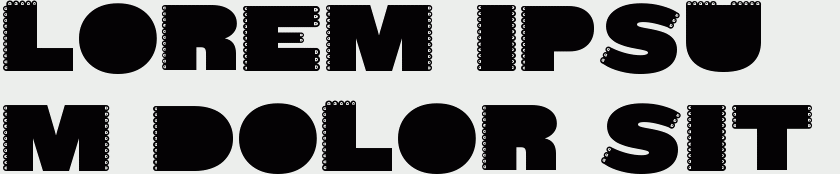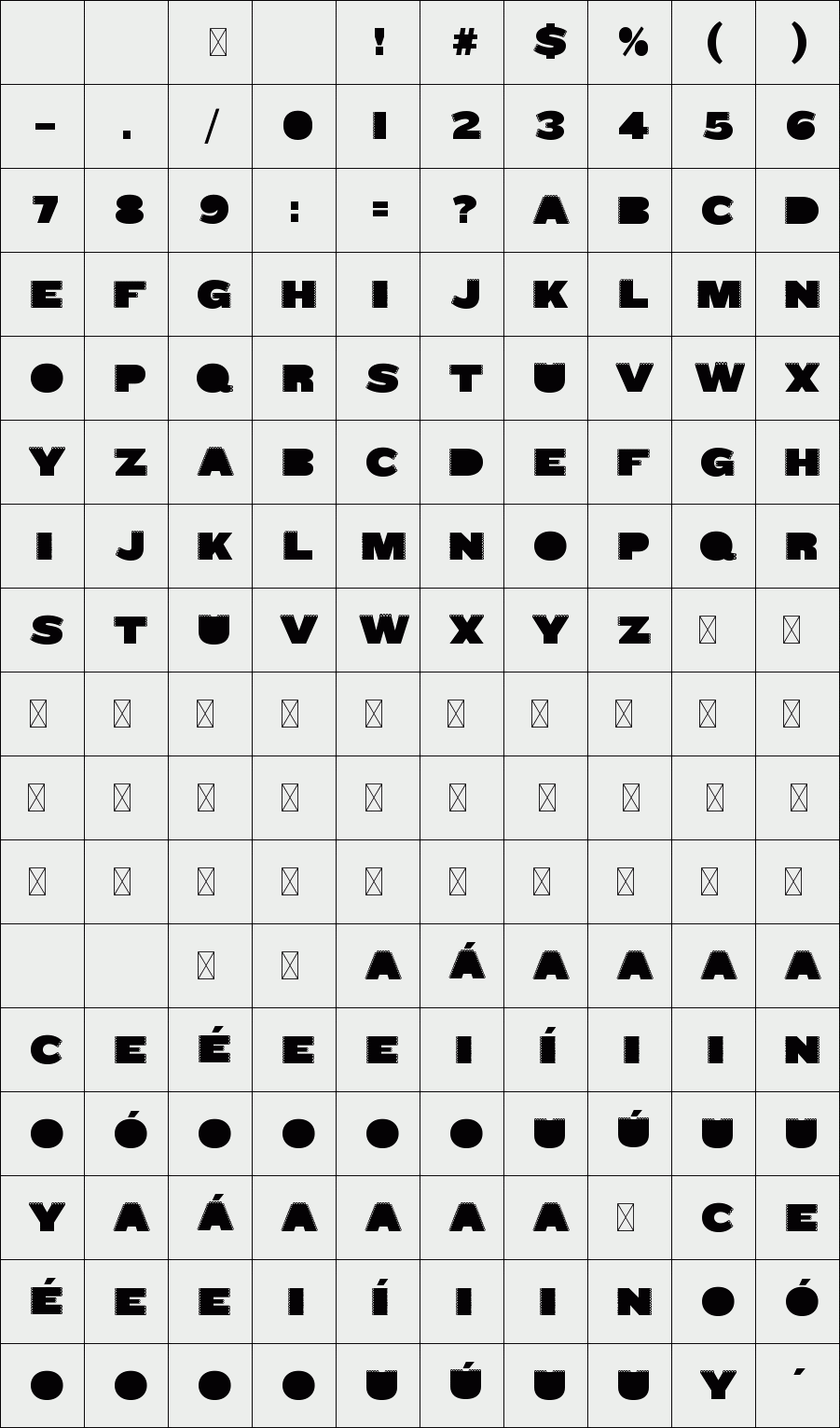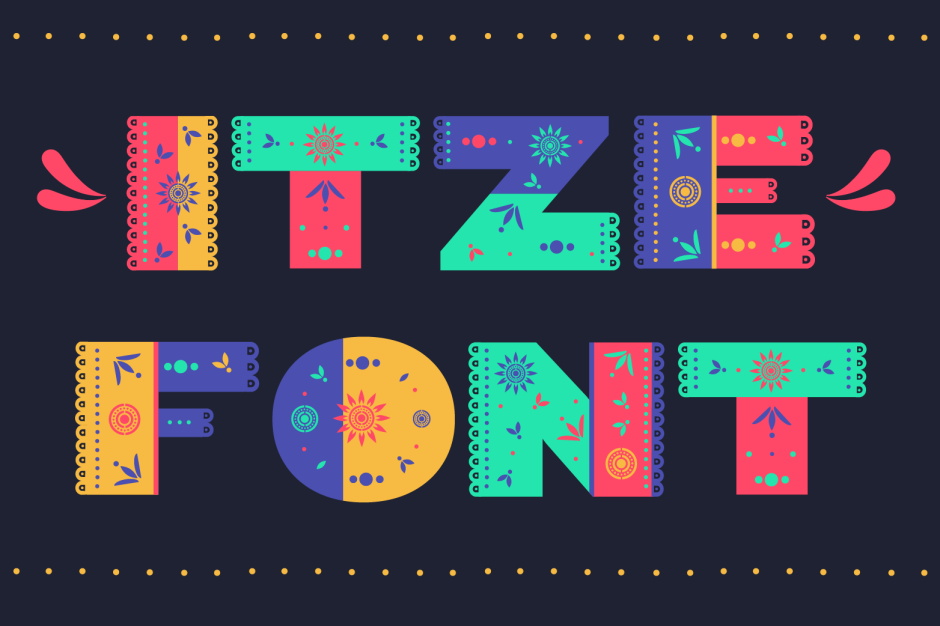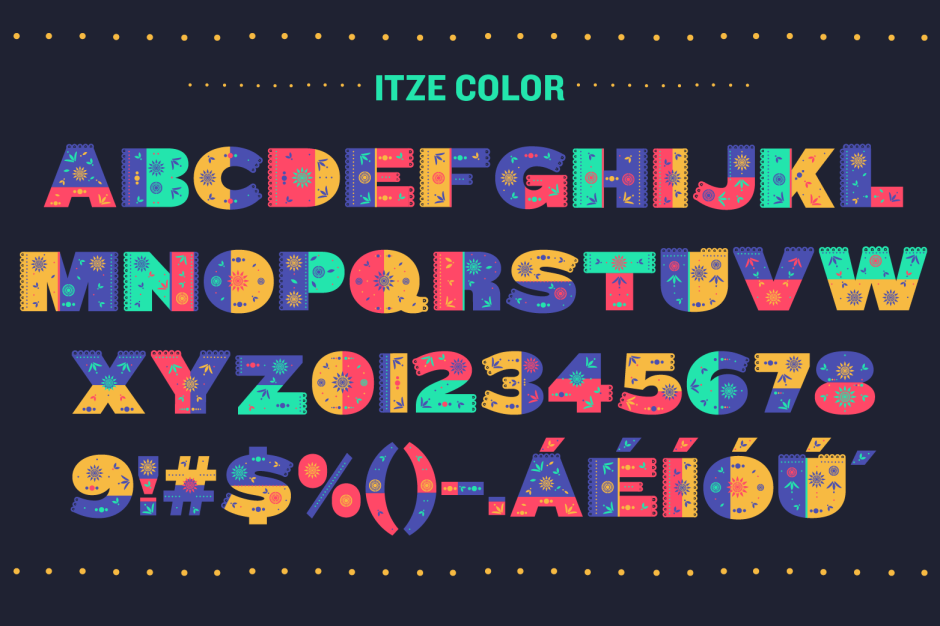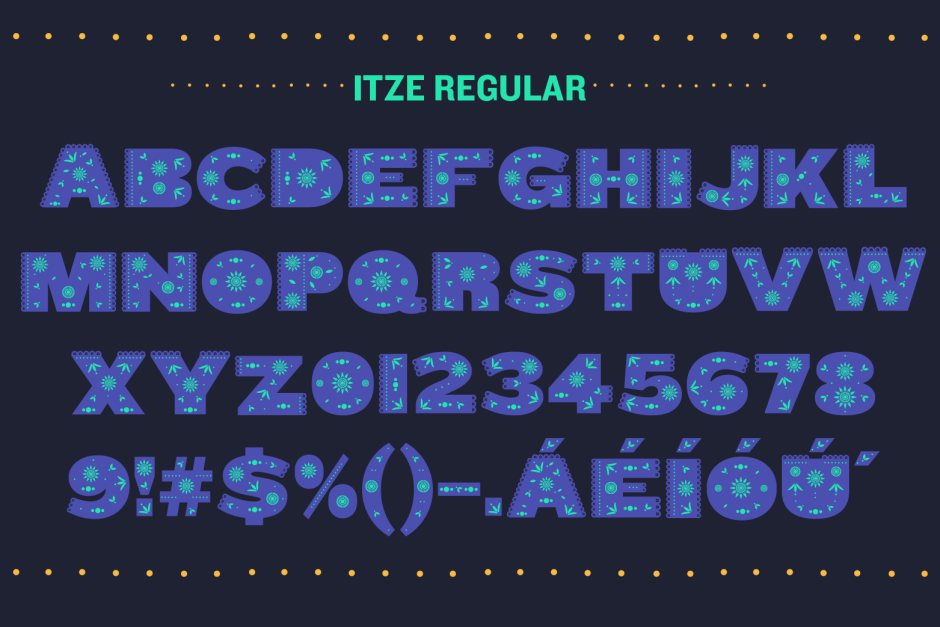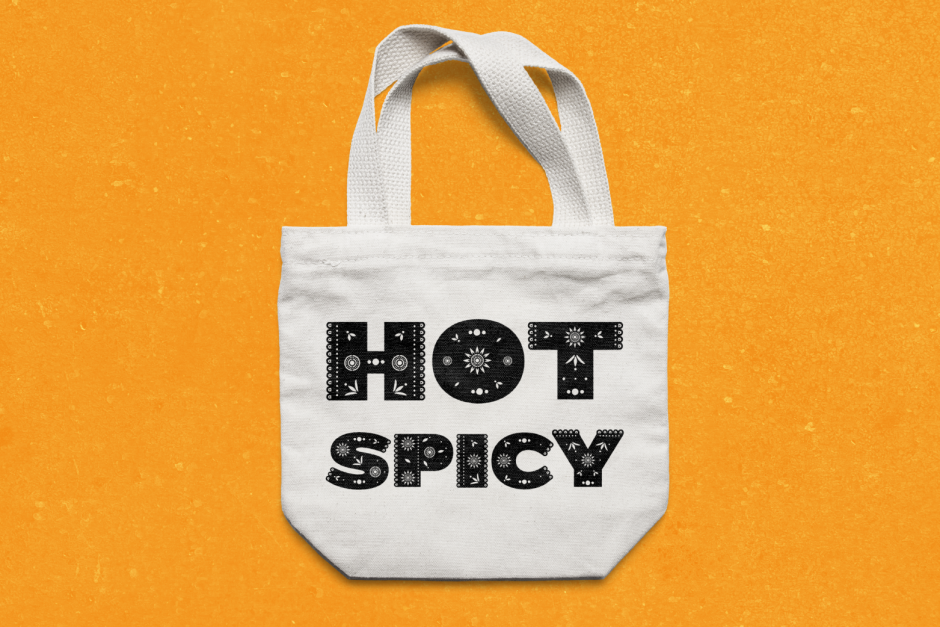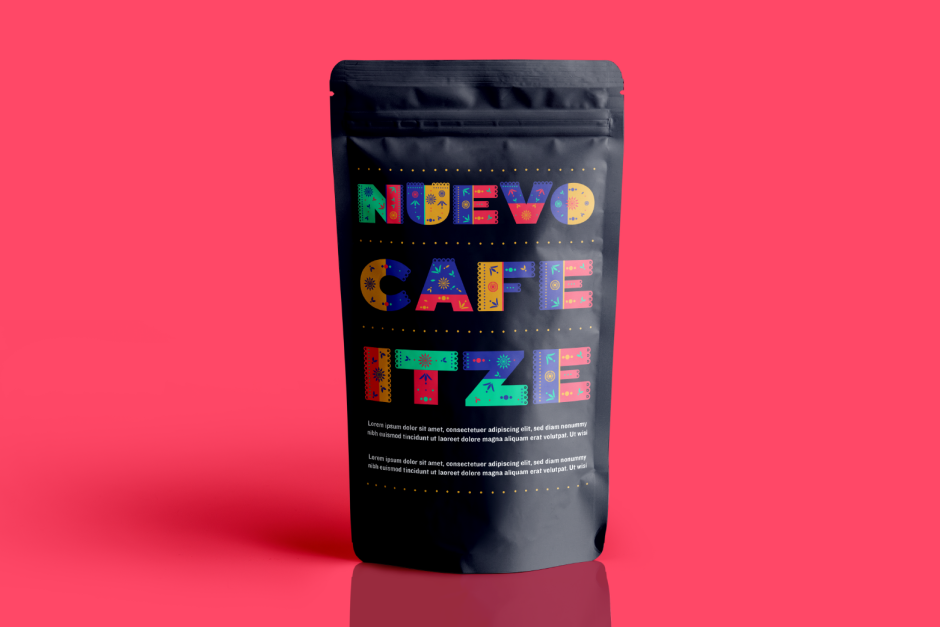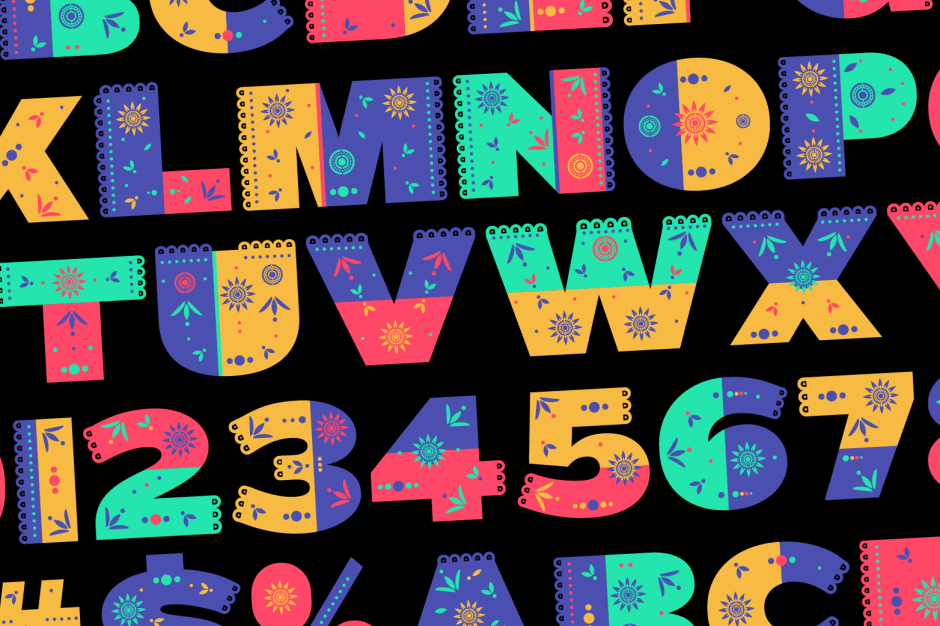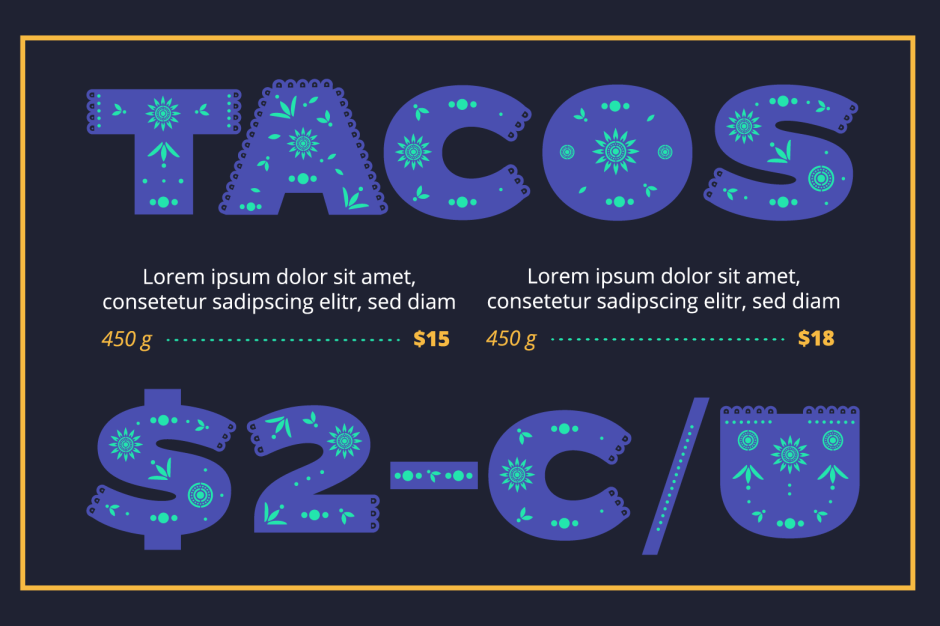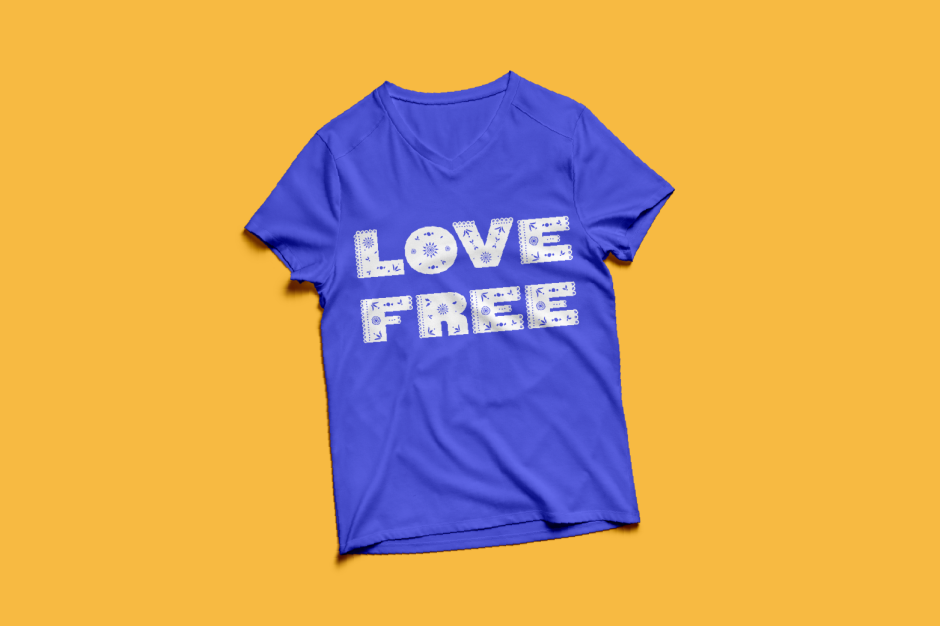
Itze
/ Itze Font
Decorative typography inspired by elements and Mexican culture. Itze font consists of 3 variables - Color, Regular and Light. Ideal for menu cards, bags, and all kinds of decorative design, modern and fun.
Designer: Yai Salinas